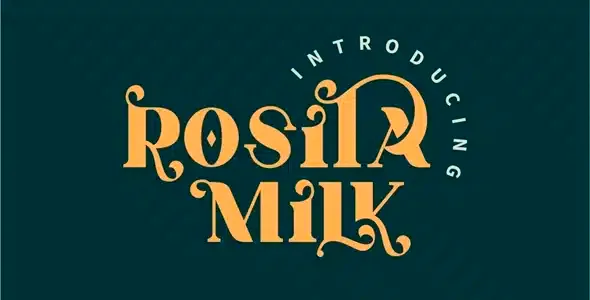
Rosita Milk Premium Font
Rosita Milk Premium Font is a Serif font that comes with style and character. This font is perfect to use in your design projects. for logotypes, photography, wedding invitations, advertisements and any project that requires serif fonts.
Rosita Milk Premium Font
Rosita Milk Premium Font is a Serif font that comes with style and character. This font is perfect to use in your design projects. for logotypes, photography, wedding invitations, advertisements and any project that requires serif fonts.